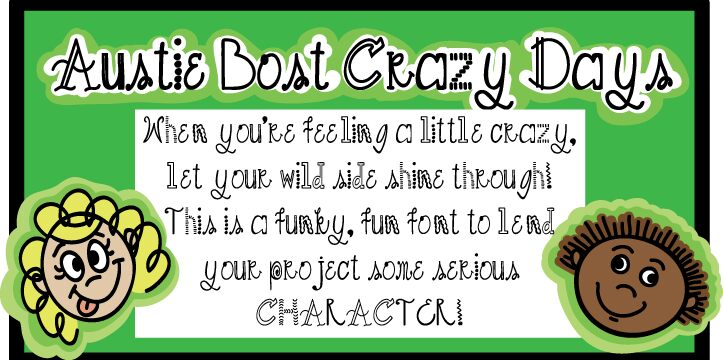
Austiebost Crazy Days, created by Austin Owens, is a free decorative display font with a wildly mismatched, hand-drawn alphabet. Tall spindly forms sit beside rounder, inflated letters, and the strokes shift from hairline loops to dense curves. Dots, curls, ripples, and tucked-in flourishes turn many characters into small illustrations.
Children's book covers are its most convincing home, since the changing shapes give every letter a new surprise. The same playful oddness suits party invitations, toy packaging, and classroom posters aimed at younger audiences. In magazines or activity books, it can make section openers feel like part of the artwork rather than ordinary editorial type.